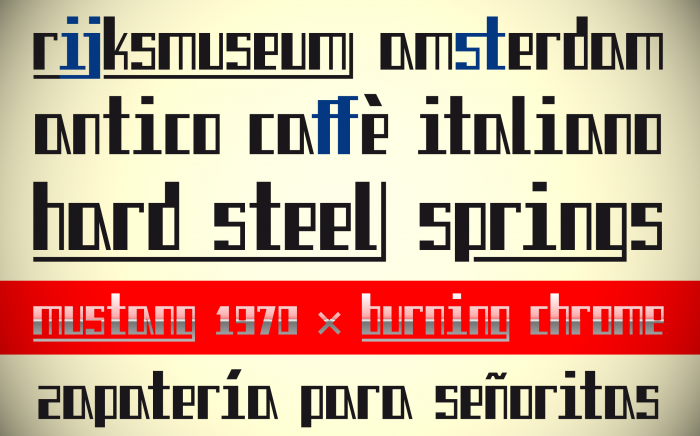
The reproduction of the original shop sign, with the type skewed 5°.
This looks awesome, very retro appearance, also I can not help but to like those Dutch samples!